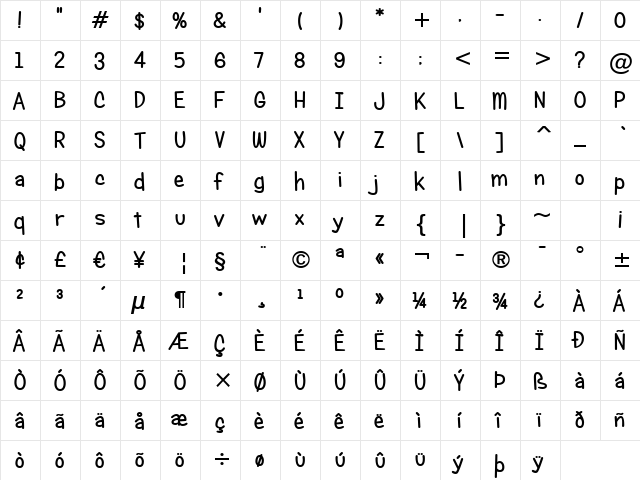
Candy Round BTN Bold
Design Context for Candy Round BTN Typeface
Candy Round BTN uses gentle rounded endings to create a warm, inviting typographic personality — less corporate than geometric sans, more refined than playful display fonts. Its bold stroke weight gives it real presence on the page.
A natural fit for tech startups, health and wellness brands, children's products, and friendly consumer apps.
Font Pairing: Pairs well with a rounded or humanist sans for body copy, maintaining the friendly tone without relying on Candy Round BTN to carry extended reading.
Pro Tip: Pair Candy Round BTN with a geometric sans for a balanced system — the rounded softness works as a warm counterpoint to harder-edged companions.